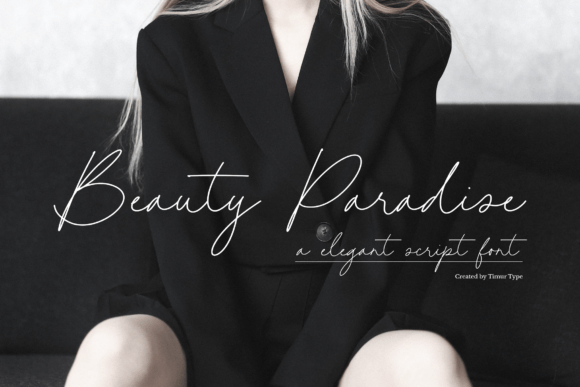
In a world where words dance and stories unfold, Beauty Paradise Font emerges as a captivating script, a testament to the power of handwritten elegance. This enchanting font, crafted with passion by Timur Type, beckons you to embark on a creative journey, where your designs blossom into spectacular masterpieces.
Unleash the allure of Beauty Paradise, a font that captures the essence of timeless beauty. Its graceful curves and delicate strokes evoke a sense of wonder and enchantment, transforming your designs into works of art. Immerse yourself in the world of Beauty Paradise, where every letter dances with grace and poise, carrying your messages with a touch of sophistication.
With Beauty Paradise, you hold the key to unlocking your creative potential. Its flowing lines and elegant flourishes add a touch of magic to your projects, whether you're crafting captivating logos, enchanting wedding invitations, or heartfelt greeting cards. Let your imagination soar as you explore the endless possibilities of Beauty Paradise, a font that ignites your passion and sets your designs ablaze.